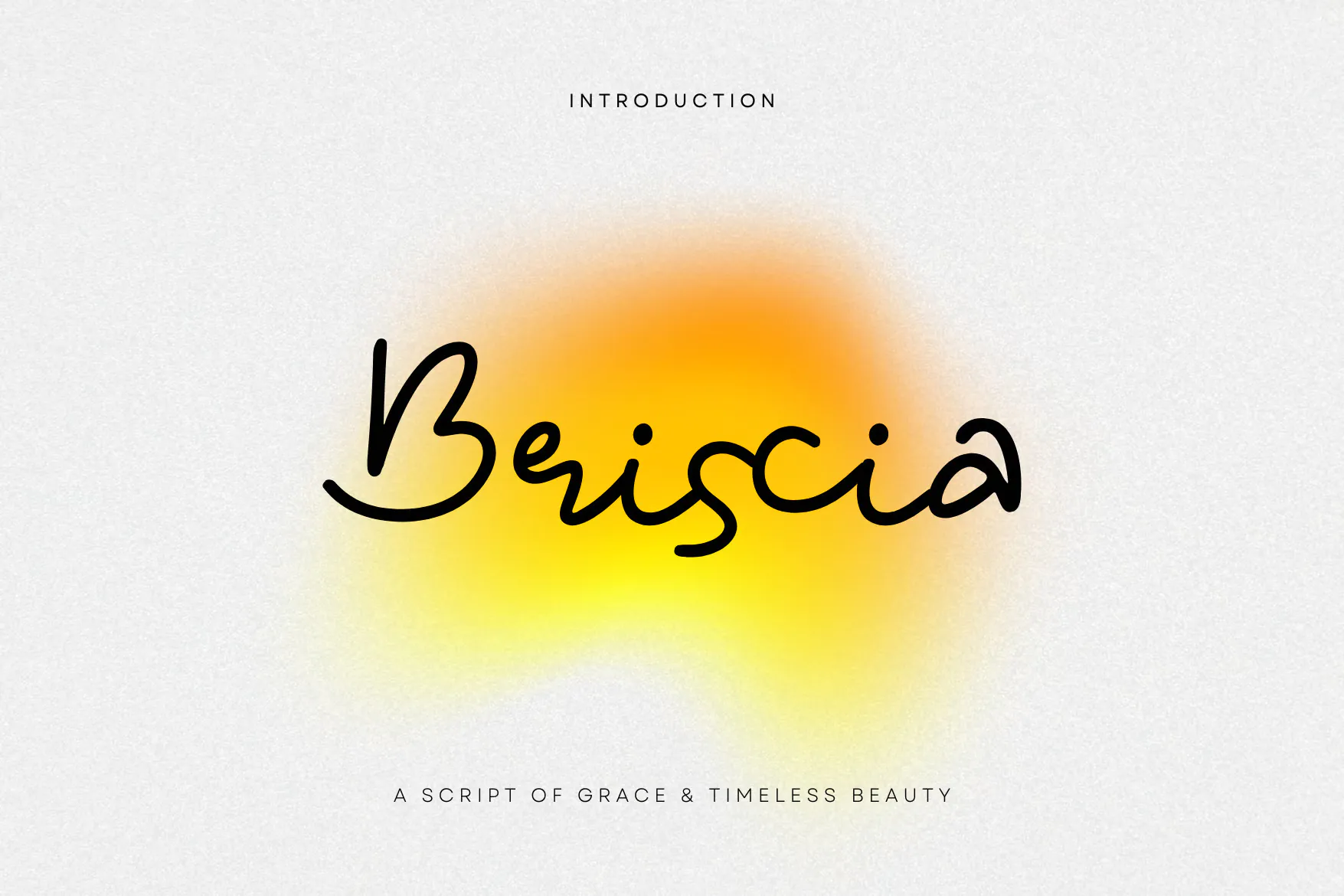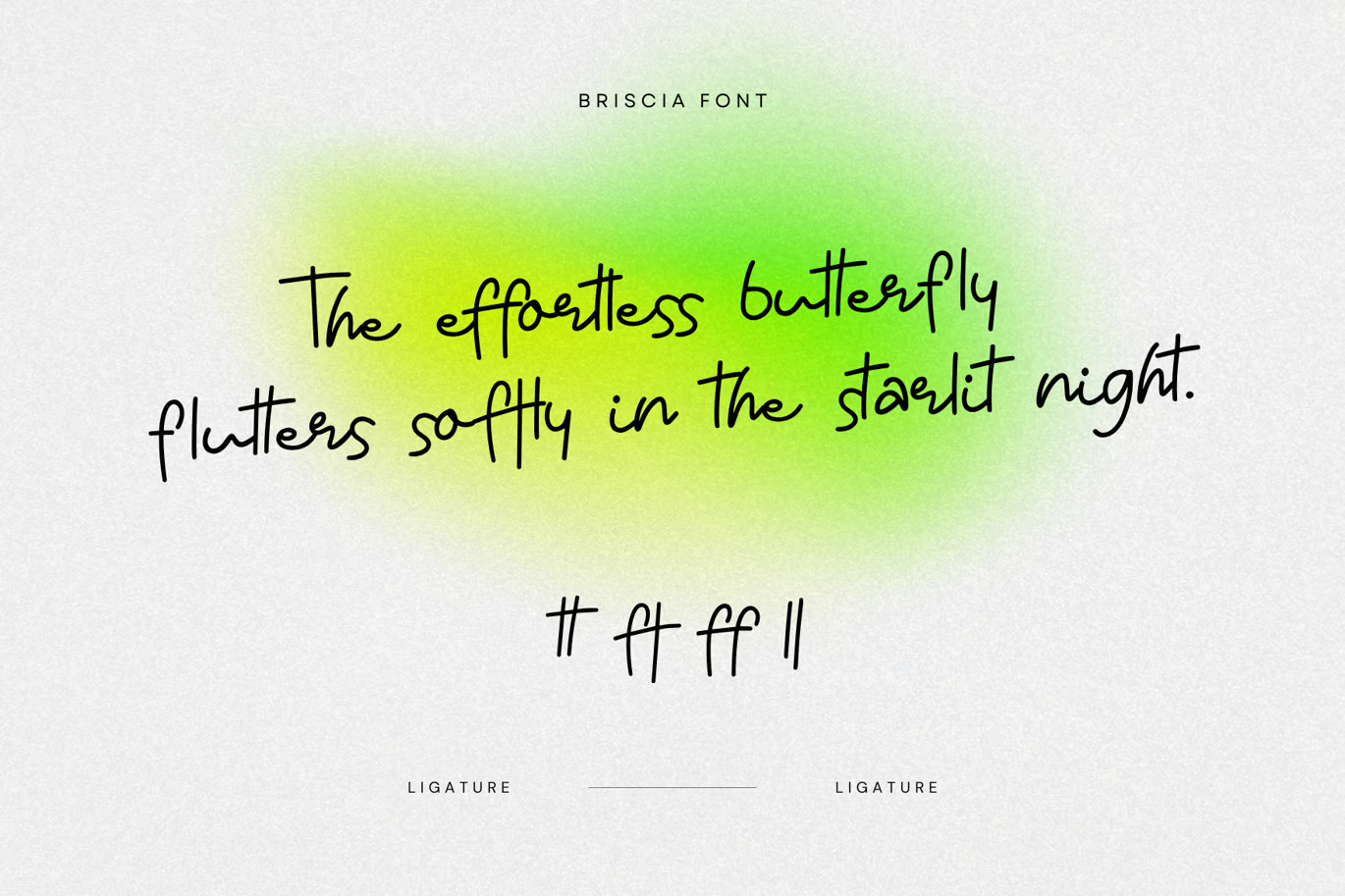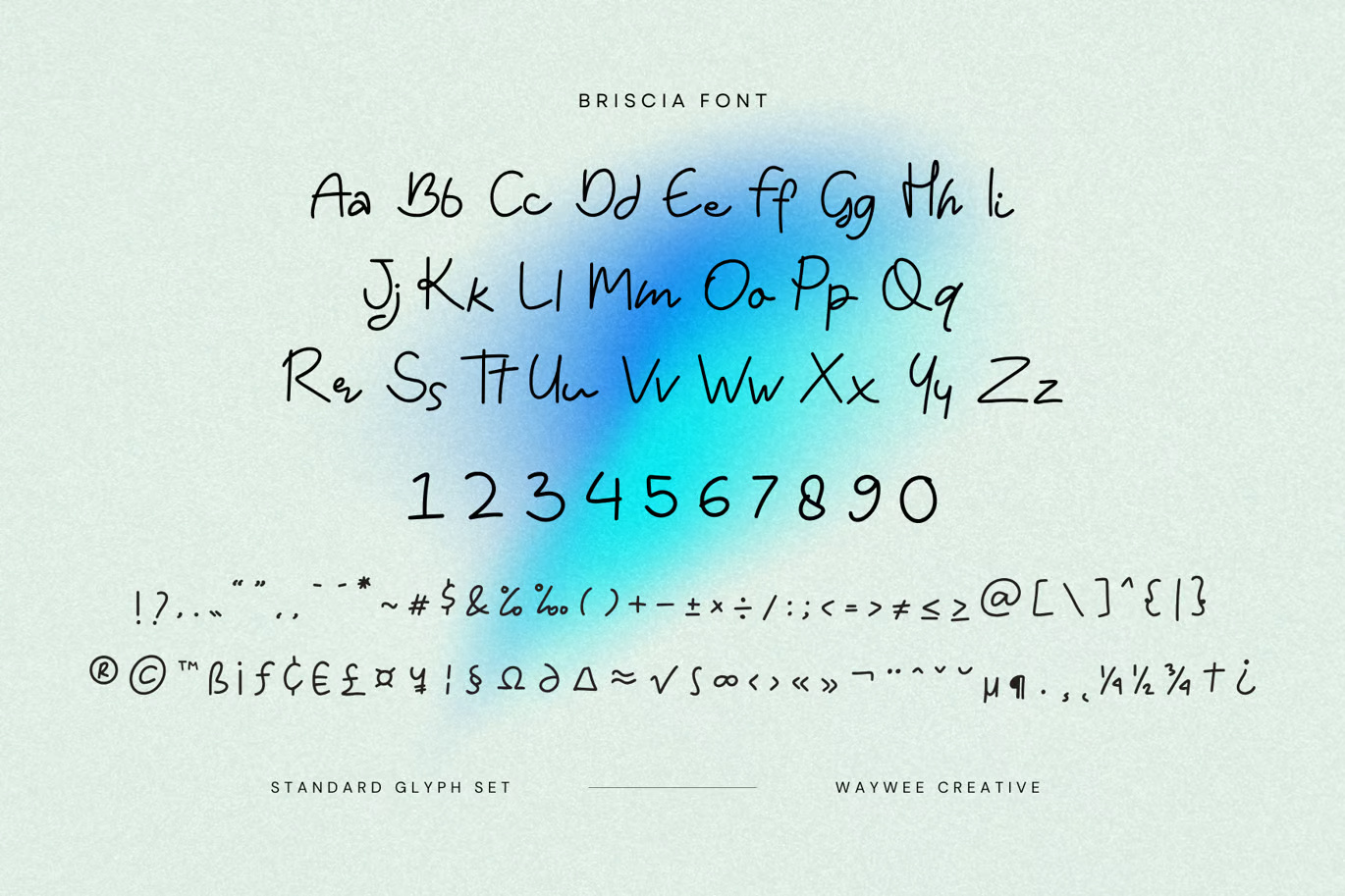
Briscia A Graceful & Timeless Script Font
Briscia is a sophisticated handwritten script that flows effortlessly across any design, embodying a perfect blend of grace, modernity, and charm. With its smooth curves and dynamic strokes, it brings an authentic, fluid, and expressive handwritten feel, making every word look effortlessly stylish. Designed for elegance and timeless appeal, Briscia is an excellent choice for wedding stationery, luxury branding, and minimalist design, seamlessly adapting to both classic and contemporary aesthetics. Its versatility makes it ideal for logo design, packaging, and social media graphics, adding a refined touch to any project.